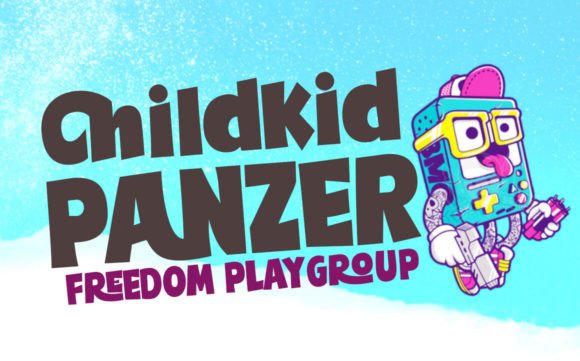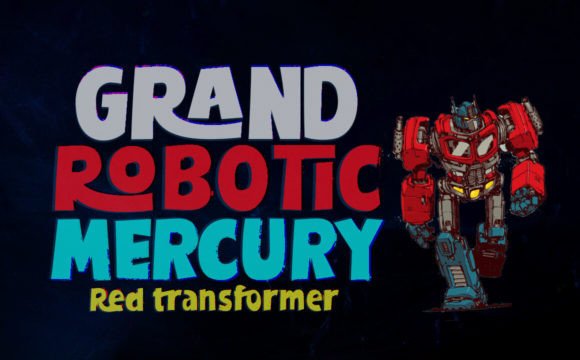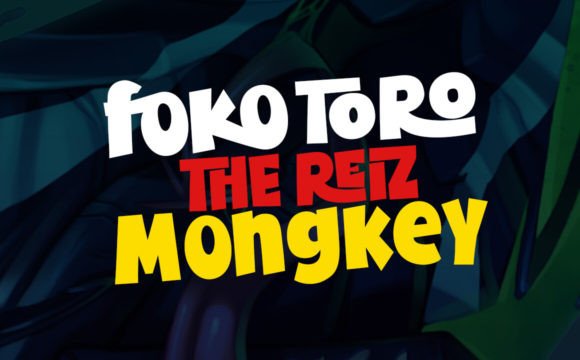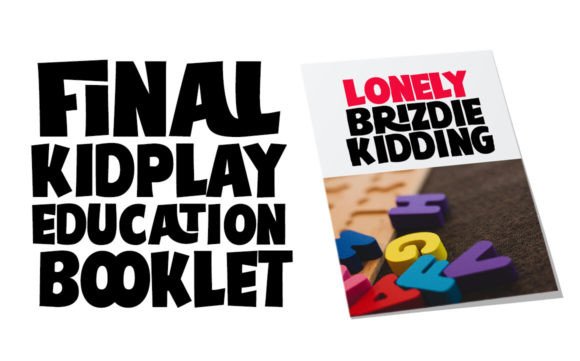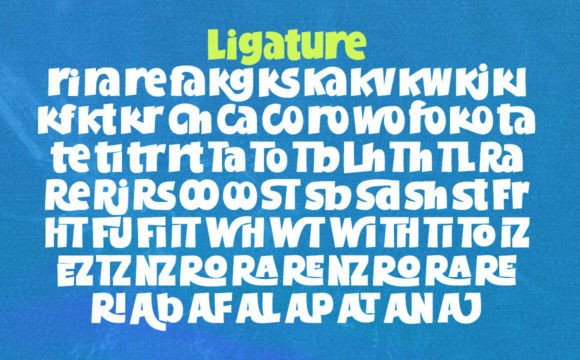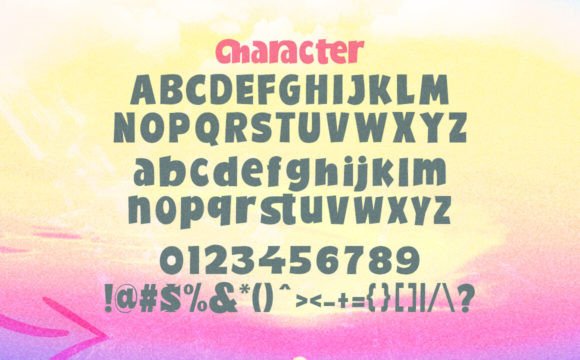
Introduction to Funks Bosko Font
You know that moment when you’re working on a creative project and you just can’t seem to find the right font to bring your vision to life? It’s like searching for a needle in a haystack, but with letters instead. But what if I told you that there’s a font that can make all your design dreams come true? Say hello to Funks Bosko Font, a sharp and bold display font that’s perfect for crafting, digital designing, presentations, or making greeting cards.
Whether you’re a seasoned designer or a beginner looking for a high-quality design resource, Funks Bosko Font is a valuable addition to your toolkit. With its transparent background and free download option, you can experiment with this font without breaking the bank. And the best part? It’s available for you to use in your creative projects, giving you the freedom to express yourself without any limitations.
Key Features of Funks Bosko Font
- High-quality design resource ideal for creative projects, including cartoons, comics, and children’s books.
- Unique, hand-drawn style with a transparent background, allowing for easy customization and blending with other design elements.
- Includes a range of characters, including uppercase and lowercase letters, numbers, and punctuation marks, making it a versatile design resource.
- Perfect for designers and artists looking for a fun, playful font to add a touch of personality to their creative project.
Honest Review: Funks Bosko Font
I recently had the chance to work with the Funks Bosko Font, and I must say it’s a great addition to my design resource library. The font is a high-quality, free download that’s perfect for any creative project.
- ✨ Great for illustrations and graphics: The Funks Bosko Font is ideal for creating fun and playful illustrations. Its unique characters and shapes make it a great choice for adding personality to your designs.
- ✨ Transparent background: The font has a transparent background, making it easy to use in a variety of design scenarios.
- ⚠️ Limited language support: The Funks Bosko Font only supports a limited number of languages, which may be a concern for designers working on projects that require multilingual support.
- ⚠️ Not ideal for large text: The font is best used for smaller text sizes, as it can become difficult to read at larger sizes.
Overall, I’m impressed with the Funks Bosko Font. It’s a great design resource that can add a lot of personality to your creative projects. While it has some limitations, I think it’s well worth using for the right type of project.
Funks Bosko Font is commonly used in graphic design, digital art, and creative writing. It’s a great option for adding a vintage touch to your designs, and its transparent background makes it easy to use in any design project. With Funks Bosko Font, you can create unique and eye-catching designs that stand out from the crowd.